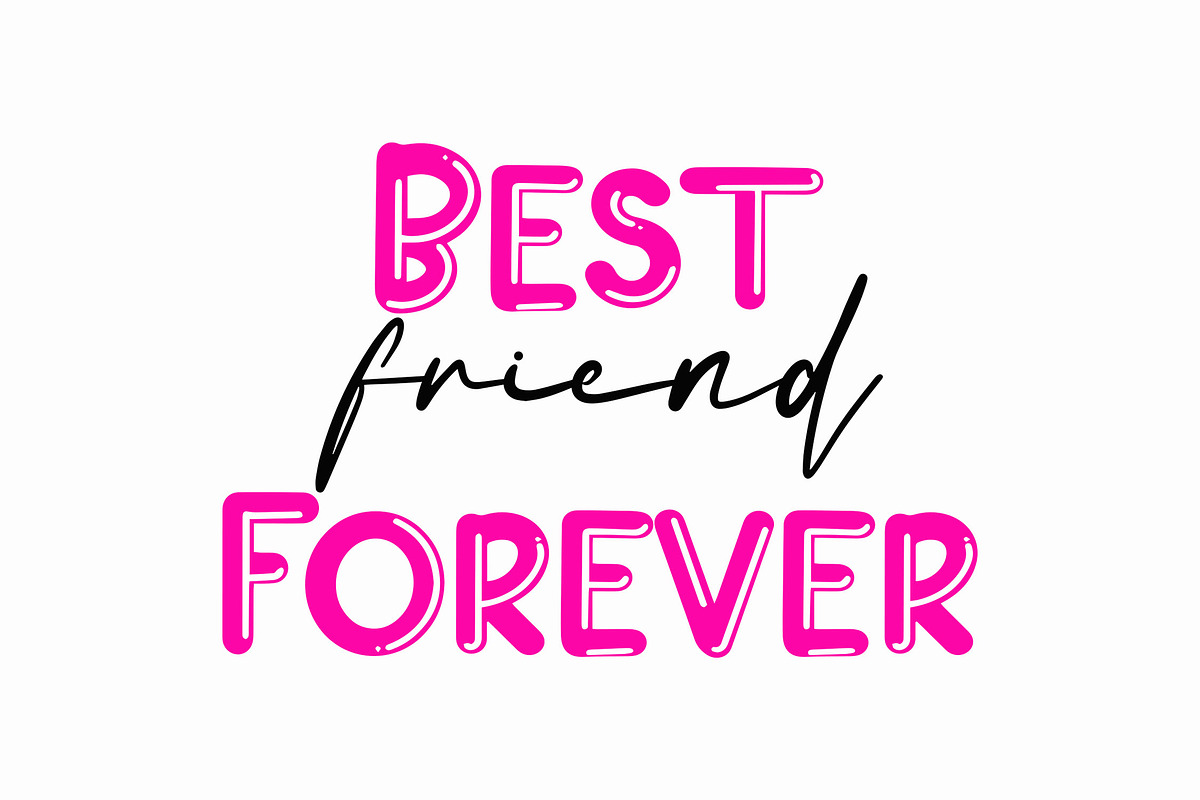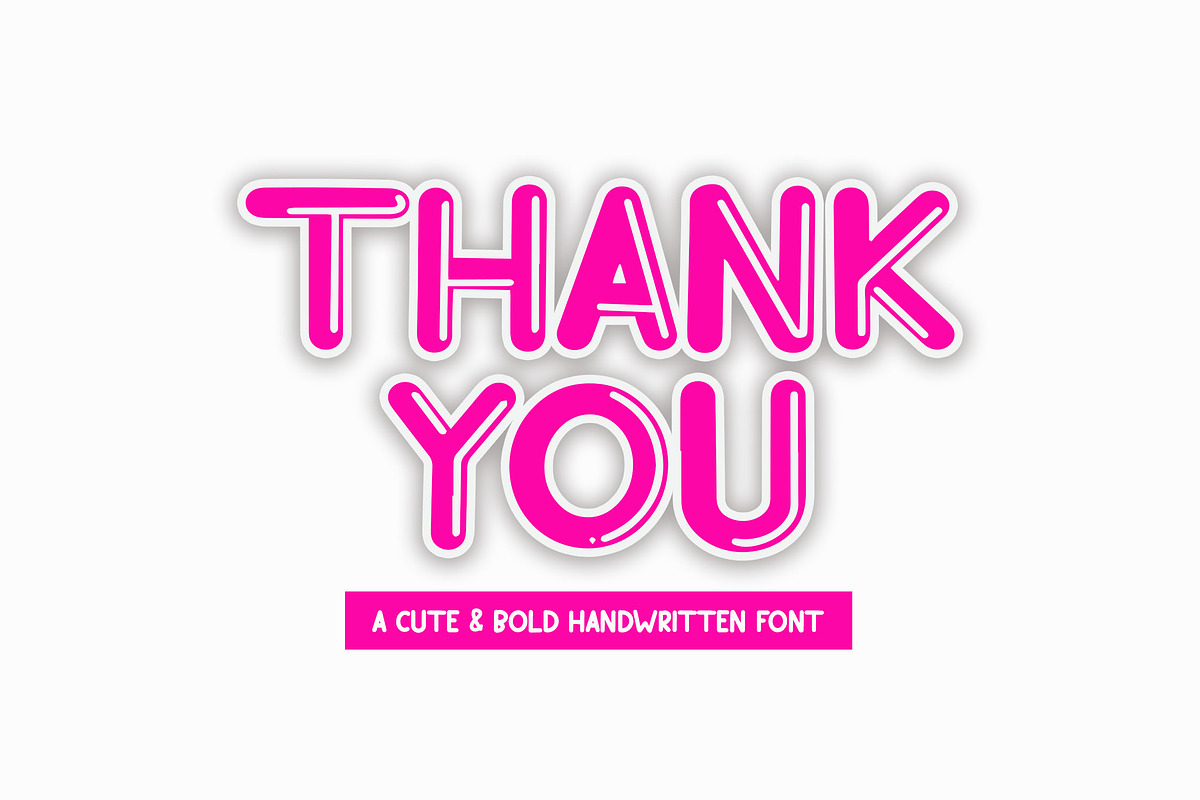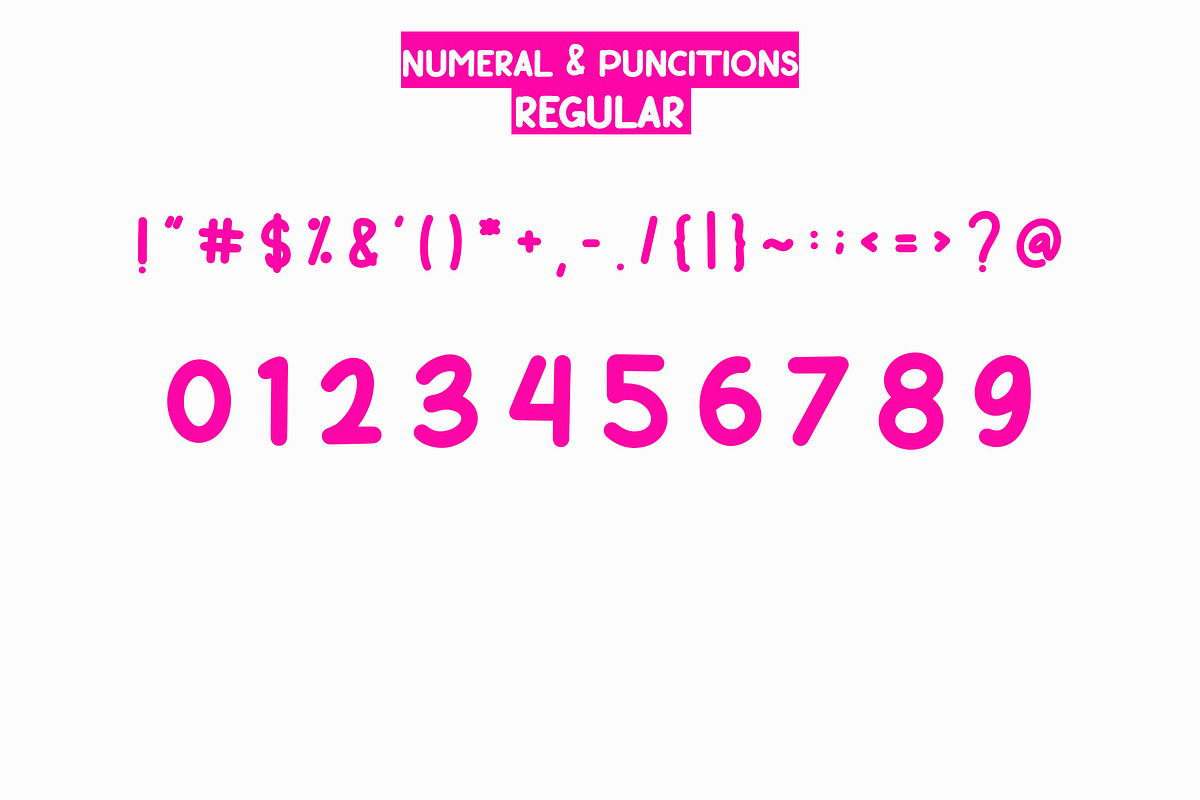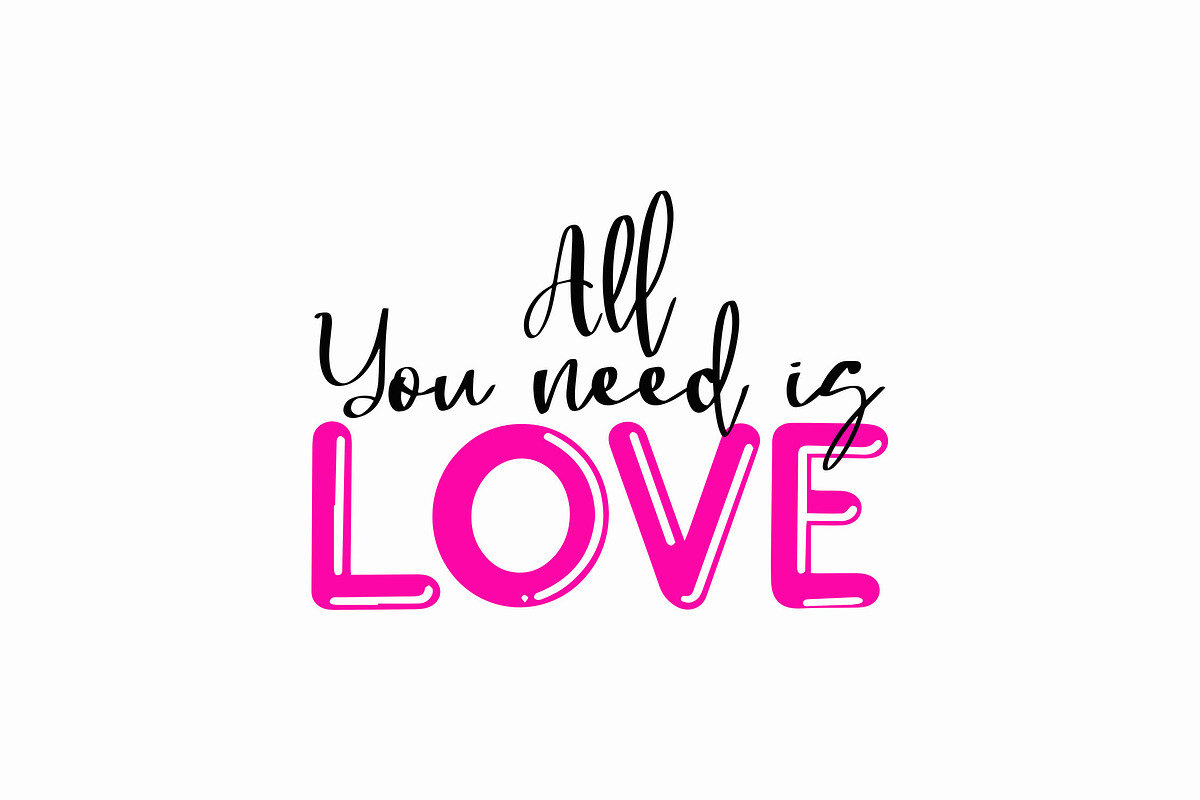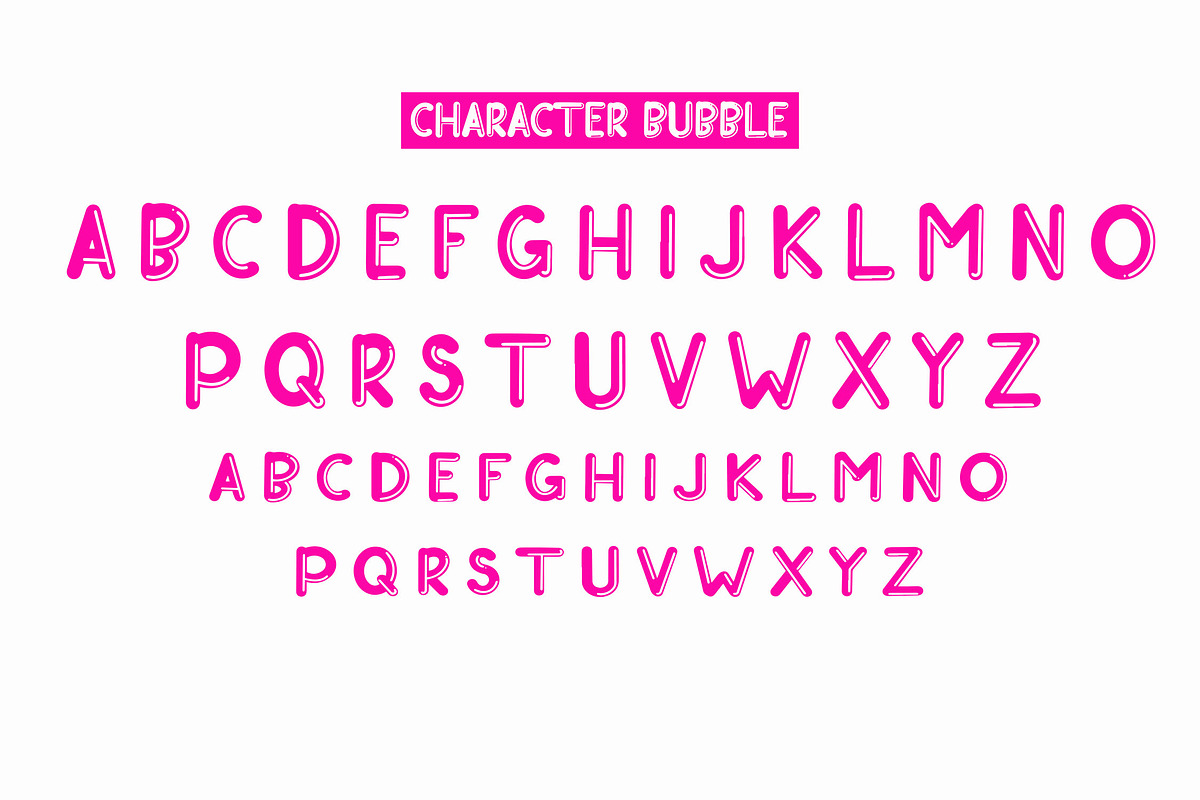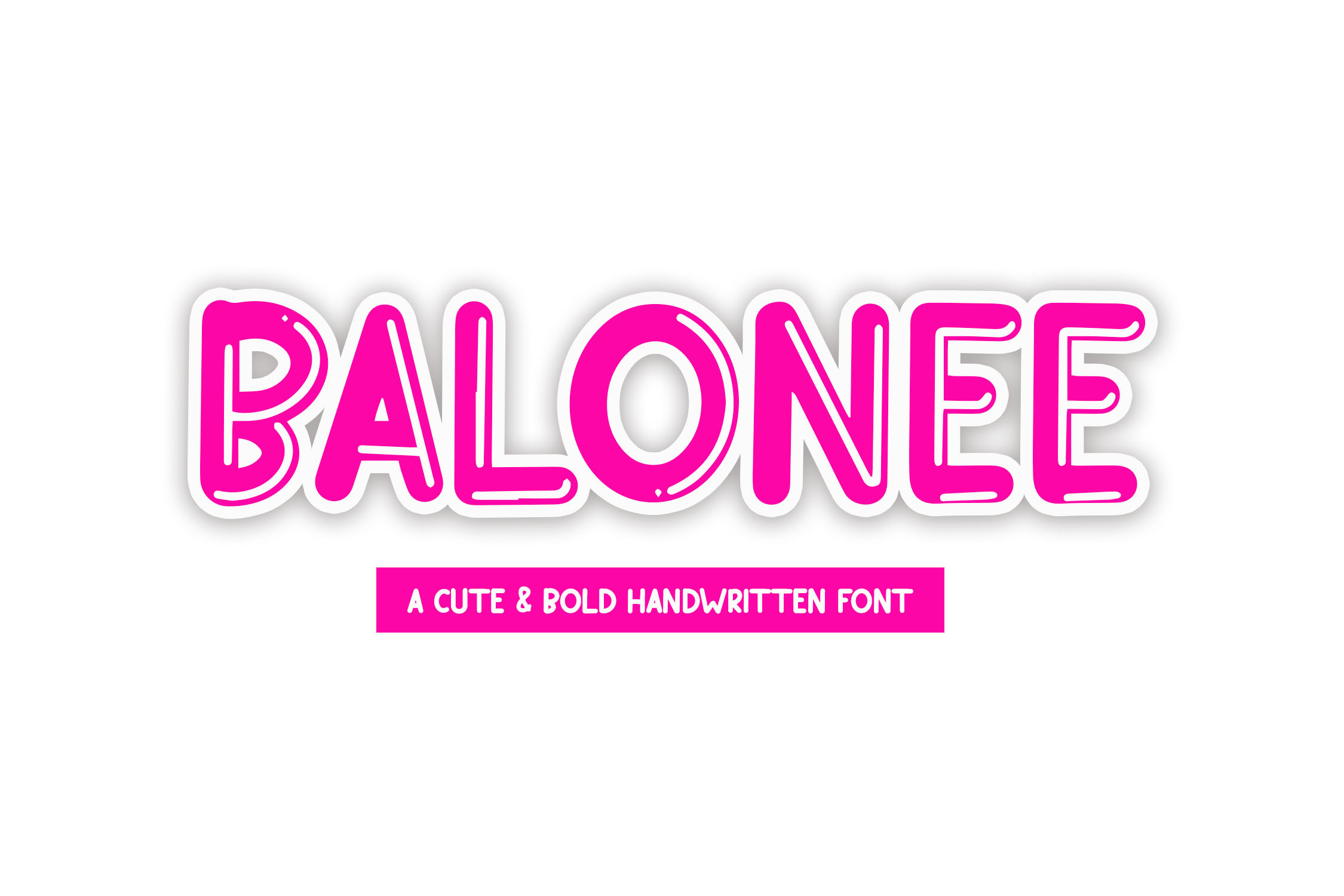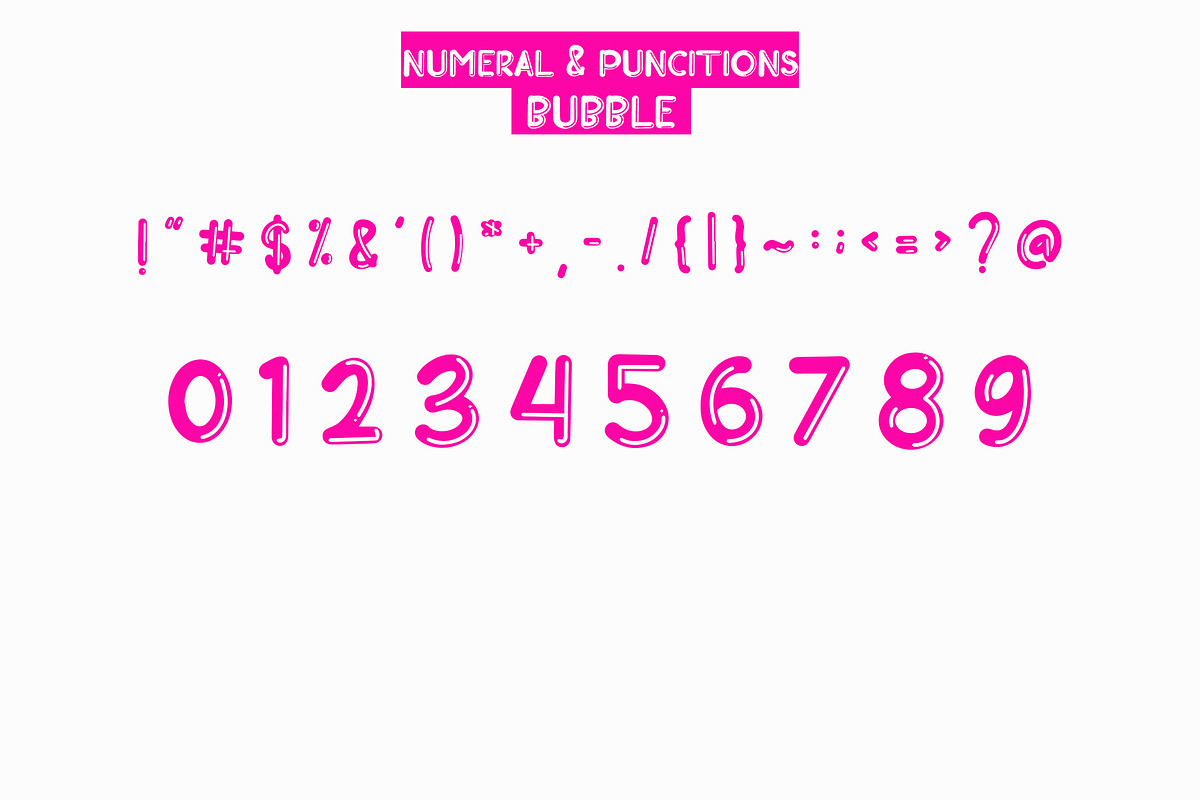
BALONEE Cute Handwriting Font
Introducing BALONEE – A Playful Handwriting Font to Brighten Up Your Designs!
BALONEE is an adorable handwriting font with a cute and whimsical style, perfect for bringing a fun and unique touch to your creative projects. Each character is carefully crafted with distinct shapes, adding charm and personality to your designs. Whether for branding, packaging, or social media, BALONEE will make your product visually captivating and memorable.
- Dual Style Fonts